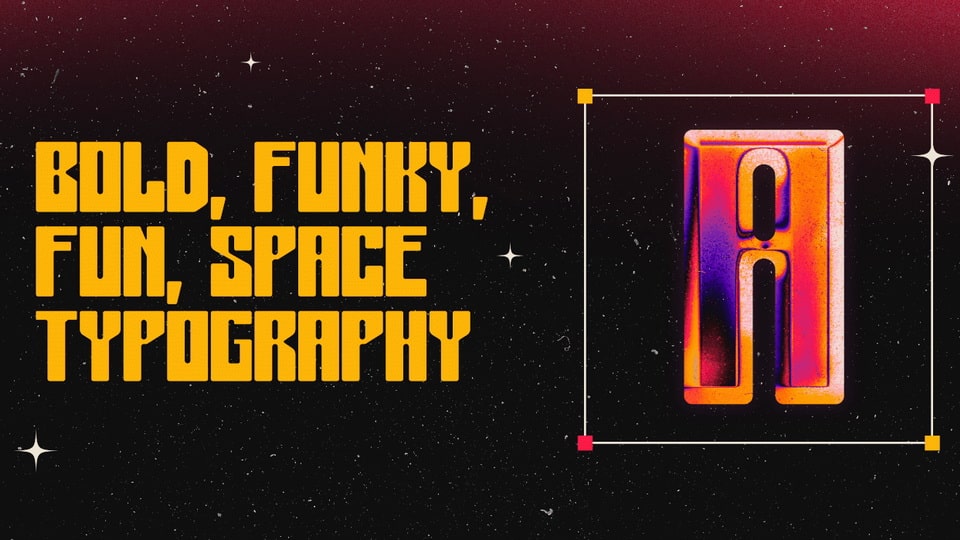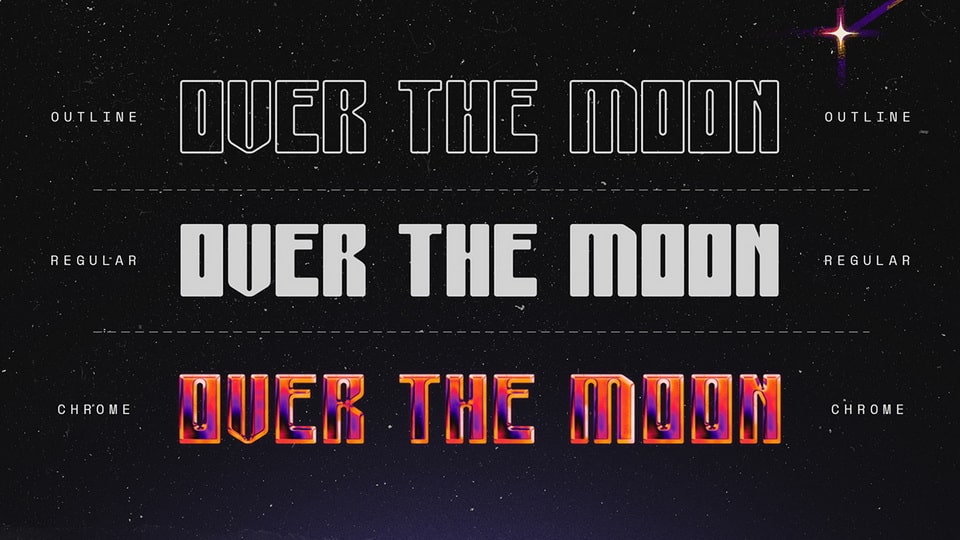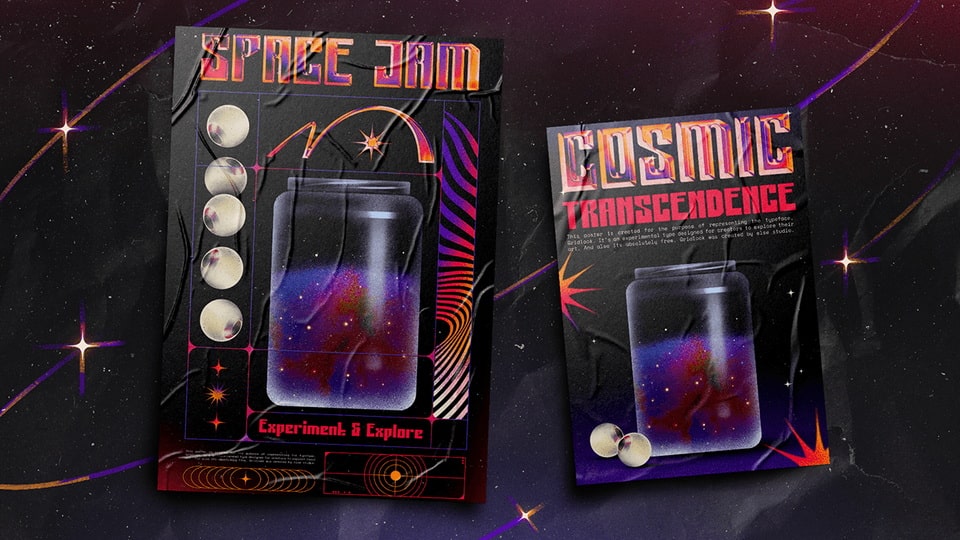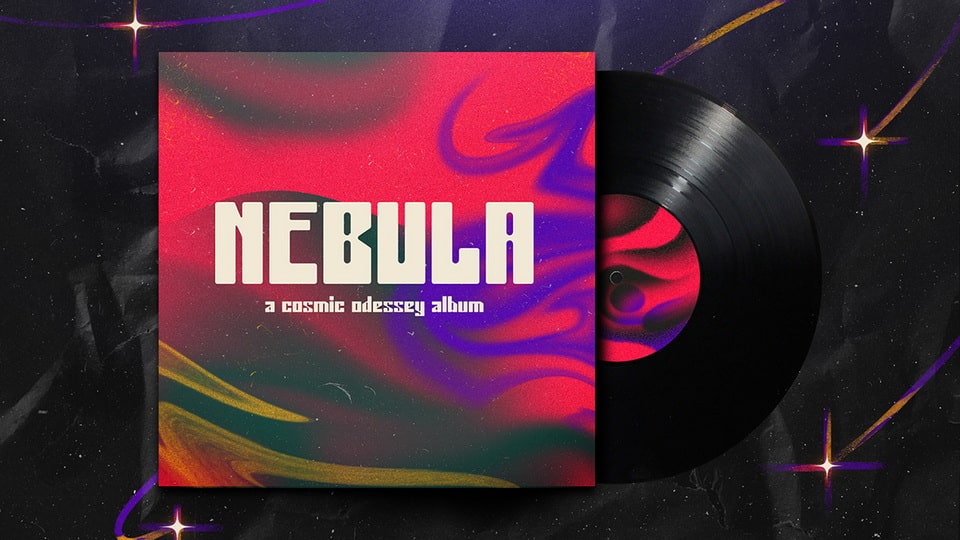
Gridlock is a bold and experimental display typeface with a unique, spacey, retro-futuristic aesthetic that transports your designs to new dimensions. It features striking, unconventional letterforms, blending bold geometry with sleek, otherworldly curves. Perfect for attention-grabbing posters, innovative branding, cutting-edge album covers, and standout social media graphics, this font adds a sense of adventure and futuristic flair to your text.
Gridlock font is crafted to ensure maximum impact while maintaining a distinctive, space-age look. Its bold and experimental nature makes it ideal for projects that seek to break boundaries and evoke a sense of wonder and exploration.